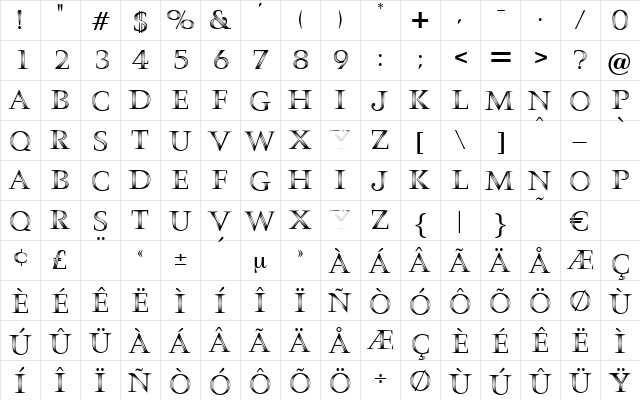
Palace Regular
Design Context for Palace Typeface
Palace is a composed and adaptable typeface that performs quietly and consistently across a wide range of design contexts.